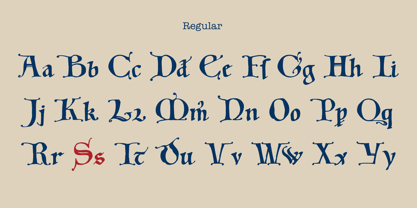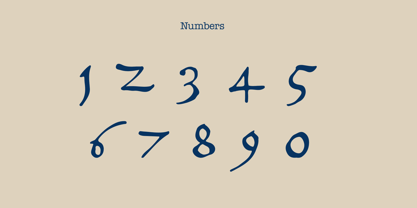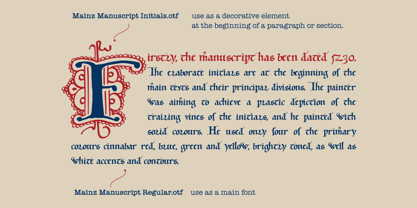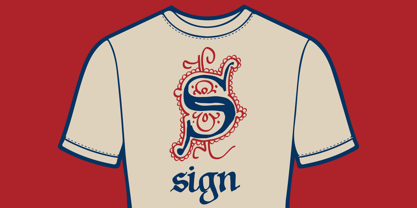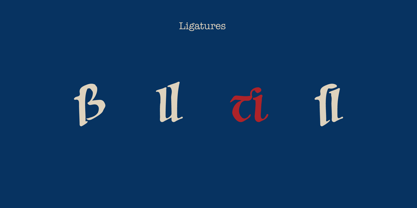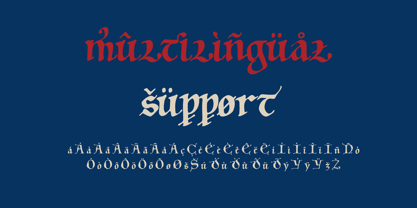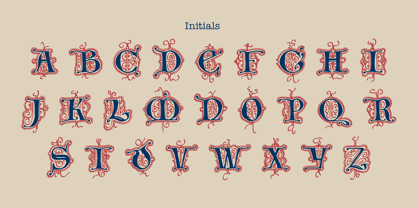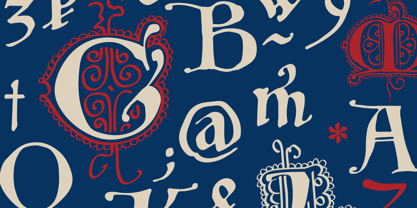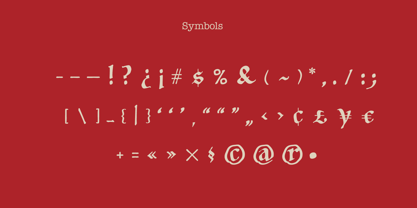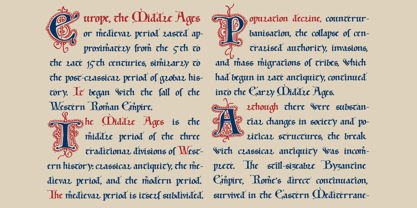
Mainz Manuscript
The Mainz Manuscript Font Family was designed by Roman Korolev and published by Kaer. Mainz Manuscript contains 2 styles and family package options. More about this family
I'm happy to present you my new Middle Ages blackletter font family based on Historia de sancto Willigiso.  This manuscript, created in the mid-12th century. It contains the text of a service to Willigis, Archbishop of Mainz. The manuscript is written in Carolingian minuscule, a script that uses only lowercase letters. Thant why I named my fonts Mainz. I paid special attention to the artistic design of the Medieval red and blue colours initials. You can use this font for headlines, medieval charters, sporting goods, wedding invitations or other important celebrations. You will get:  Uppercase and lowercase Colored initials style Numbers and symbols Multilingual support Ligatures Free future updates Please note, you should use graphic applications such as Adobe Illustrator or Photoshop, but not Microsoft Word. All you need is put Narrow initial on the top of Wide. You can use color fonts in PS CC 2017+, AI CC 2018+, ID CC 2019+, macOS 10.14 Mojave+ Please note that the Canva & Corel & Affinity doesn't support color fonts!